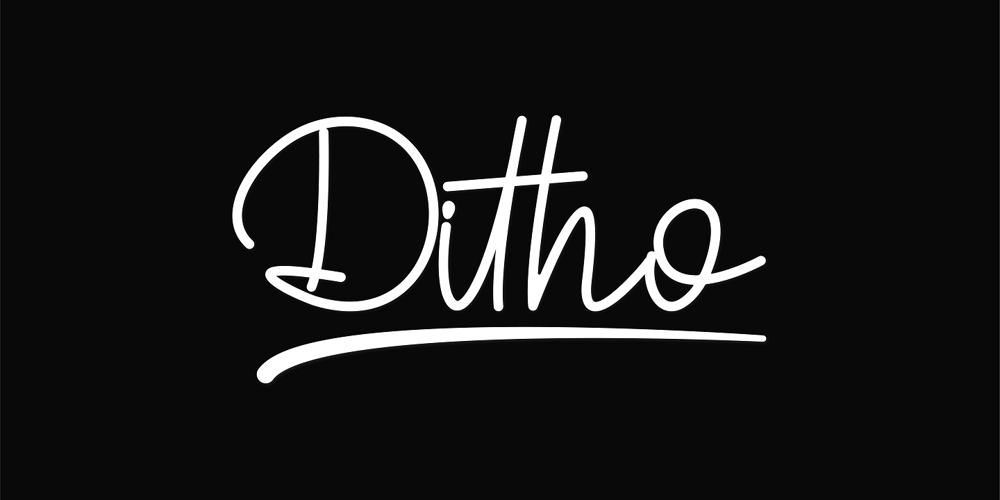
Ditho Font Family was designed by Taufiq Wijaya and published by Mifiq. Ditho contains 1 styles and family package options. Ditho is an excellent handwritten script font.Ditho is suitable for social media posts, advertisements, logos & branding, invitations, product design, photography, watermarks, labels, wedding designs, product packaging, any event that requires a handwriting.